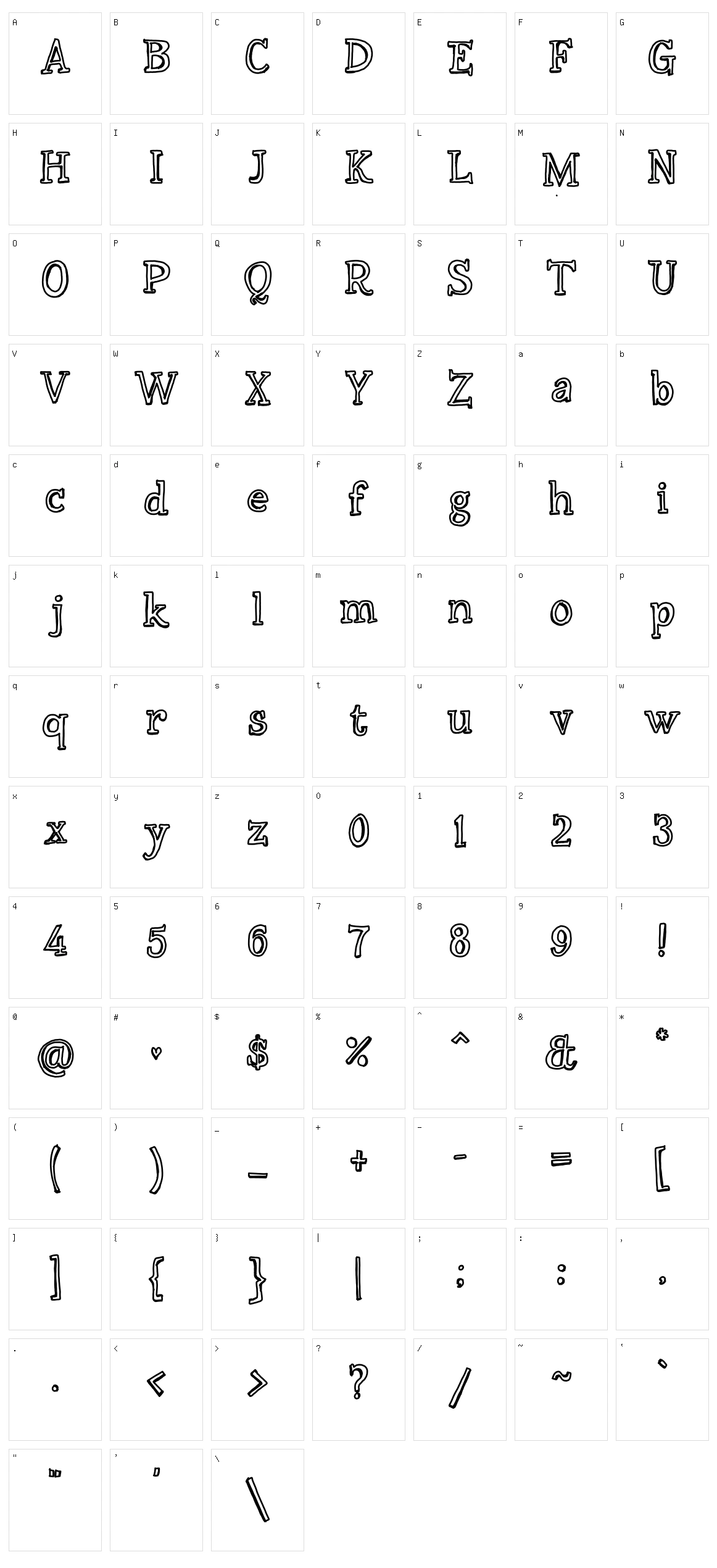
The free font Scrobbly is carefully designed by Reema Chhabra, showcasing a thoughtful balance of creativity and usability and falls under the Cartoon font style. When you download the ZIP file, it contains only 1554.56 KB of font files, making it lightweight and quick to download. Please review the license details below to understand permitted usage and distribution rights. If license information is not available, we recommend using this font for personal projects only or contacting the author directly for commercial usage permissions.